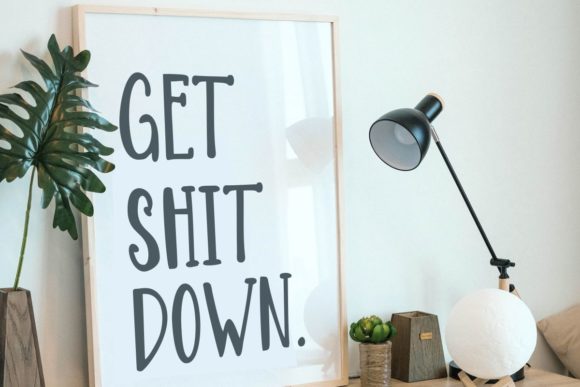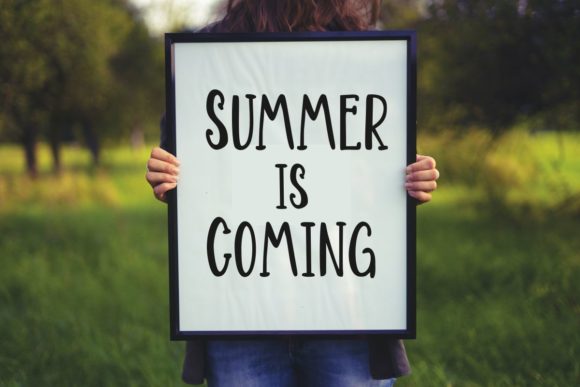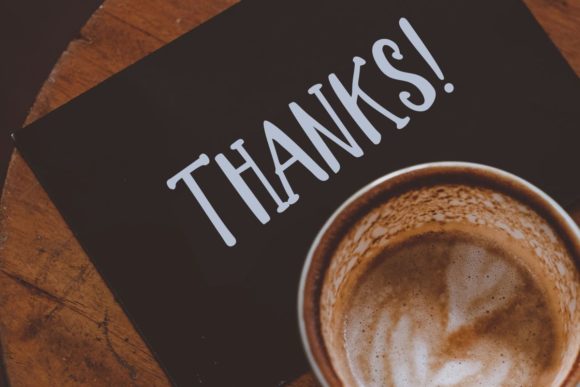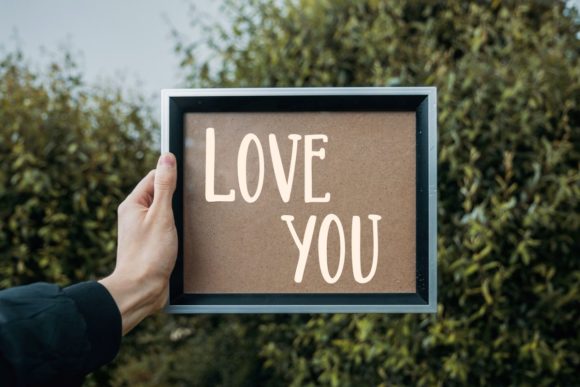
Happy Valentine Font
About Happy Valentine Font
Happy Valentine is a friendly handwritten font that brings a playful and quirky touch to your designs. With its lively and spirited style, this font is the perfect fit for various creative projects, including logos, branding, posters, and crafty DIY endeavors.
The playful nature of Happy Valentine makes it an excellent choice for designs that aim to capture a fun and lighthearted atmosphere. Whether you’re creating a logo for a children’s brand, designing a cheerful poster, or adding a personal touch to your craft projects, Happy Valentine adds a sense of joy and whimsy to your creations.
The handwritten quality of Happy Valentine gives it an authentic and organic feel. The irregular letterforms and charming imperfections add character and uniqueness to the font, making it stand out from more formal and rigid typefaces. This makes it an ideal choice for projects that require a personal and approachable touch.
Happy Valentine’s versatility allows it to adapt to various design contexts. Its legible letterforms make it suitable for both digital and print applications. Use it for social media graphics, website headers, packaging, greeting cards, and more. The playful and quirky style of Happy Valentine will catch the viewer’s attention and create a memorable impression.
When it comes to logos and branding, Happy Valentine can infuse your designs with a friendly and approachable vibe. Its playful nature can help your brand connect with audiences in a lighthearted and engaging way. Whether you’re aiming for a youthful and energetic image or a whimsical and creative identity, Happy Valentine has the ability to bring your brand to life.
In summary, Happy Valentine is a friendly handwritten font that adds a playful and quirky touch to your designs. Its versatility makes it suitable for various projects, from logos and branding to posters and crafty DIY endeavors. Embrace the joyful and spirited nature of Happy Valentine and let it bring a smile to your creative projects.